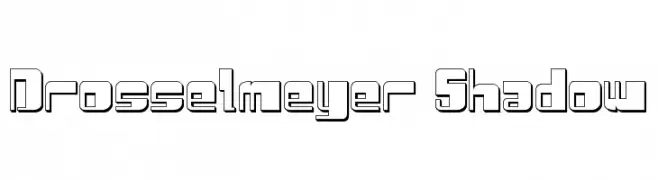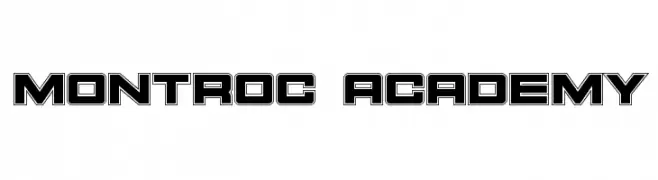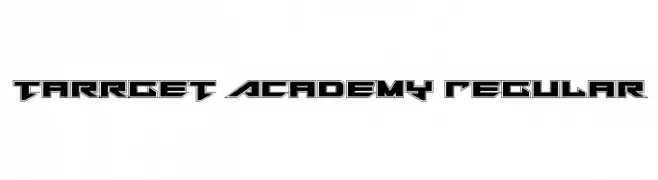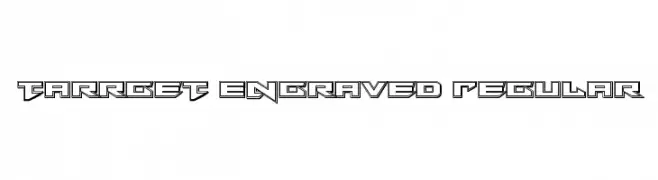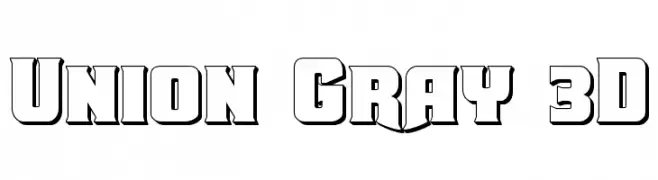
• Watchtower Academy Regular
Bold, outlined font with a geometric, three-dimensional style.
• Tarrget Engraved Regular
A bold, futuristic font with sharp angles and a three-dimensional engraved effect.
• Tarrget Academy Regular
A bold, futuristic font with sharp angles and a three-dimensional appearance.
• Drosselmeyer Shadow
A bold, geometric font with a shadow effect for a modern, three-dimensional look.
• Terran Chrome Regular
A futuristic, geometric font with a chrome-like, three-dimensional appearance.
• Nathan Brazil Academy Italic
A bold, italicized font with a three-dimensional shadow effect.
• Voyage Fantastique Platinum
A bold, three-dimensional font with a futuristic and dynamic style.
• Voyage Fantastique Chrome
A bold, futuristic font with a chrome-like, three-dimensional appearance.
• Union Gray 3D
A bold, 3D geometric font with a strong, modern presence.
• Montroc Academy
A bold, geometric font with a three-dimensional outline effect.